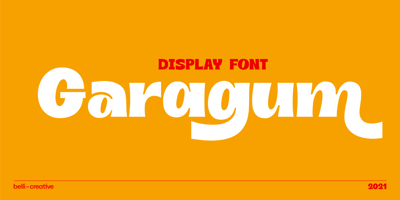
Garagum Font Family was designed by Maysa Atabayeva and published by Belli Creative. Garagum contains 1 styles and family package options. Garagum is a display font harmonizing traditional and modern vibes. It has beautifully crafted nine swashes. It’s fun, interesting and perfectly fits different kinds of design works, such as posters, book or album covers, digital spaces, or any other mediums that you want. It supports various Latin-based languages and comes with powerful open type and true type features.